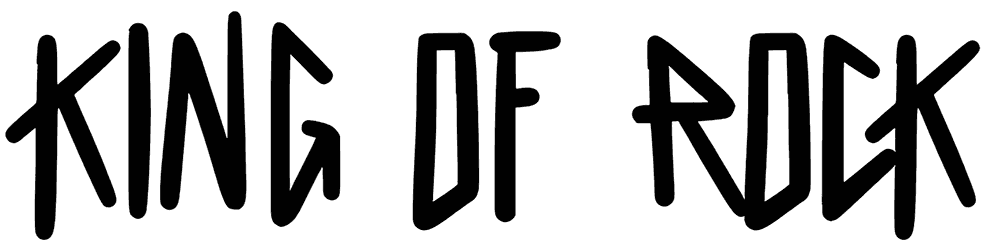
King Of Rock Font
King of Rock is a punk font that has a cohesively untidy personality and slightly slanted characters, occasionally malformed and distorted. Your presentation will have a touch of a mystery vibe with this fancy font.
This casual font is perfect for packaging, movie posters, and flyers. However, it does not have lowercase characters. By taking a chance, you can put an end to time-consuming routines and try something new.